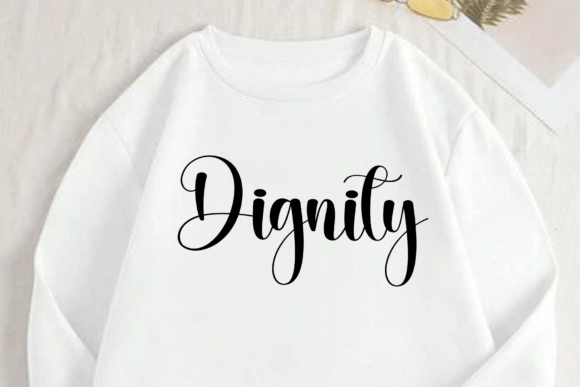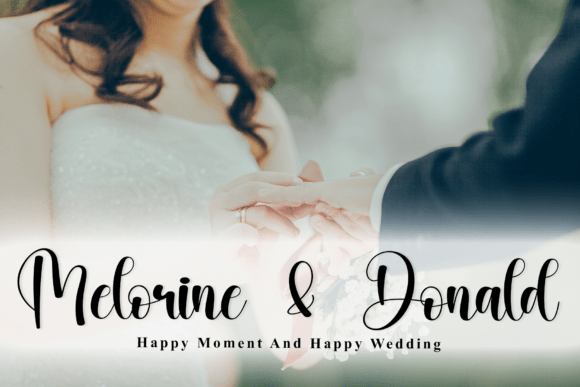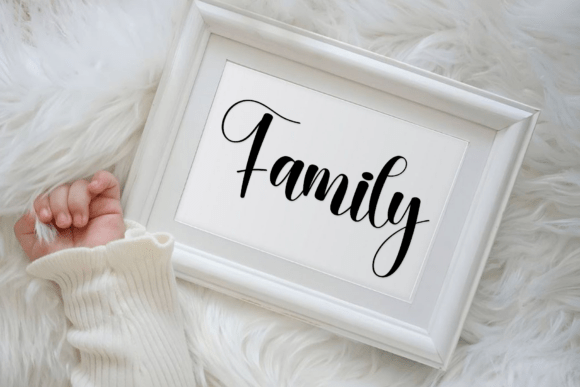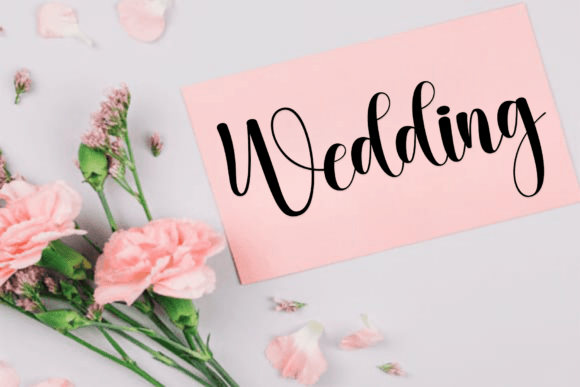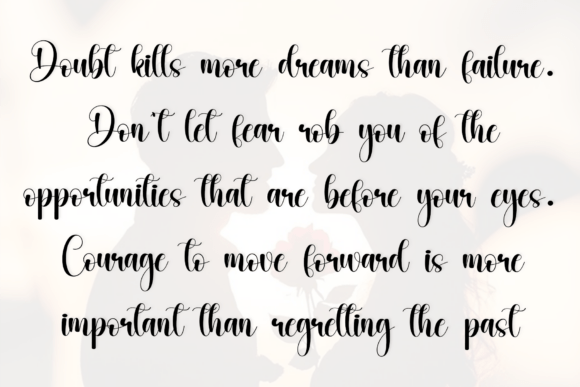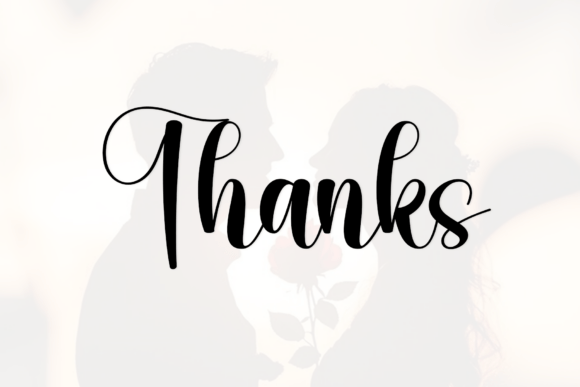
Introduction to Romatic Collection Font Font
Fonts play a crucial role in design, and the Romatic Collection Font font is a typeface that brings both character and versatility to any project. Whether you’re working on a branding project, a website, or a print design, the Romatic Collection Font font offers a unique style that can elevate your work.
Celebrate the art of romance with the Romatic Collection font, a stunning handwritten typeface that exudes luxury and passion.
This Romatic Collection typeface features sweeping flourishes and a professional, calligraphic weight that feels both intimate and grand It is the ultimate choice for high-end wedding invitations, perfume branding, and anniversary jewelry packaging.
Key Features of Romatic Collection Font Font
Why Choose Romatic Collection Font Font?
The Romatic Collection Font font is more than just a typeface – it’s a design tool that helps you communicate your message with style and clarity. Its unique character set and versatile design make it suitable for a wide range of applications, from elegant invitations to bold headlines.
With its carefully crafted letterforms and balanced proportions, the Romatic Collection Font font ensures readability and visual appeal across all mediums.
What makes Romatic Collection Font font special?
The Romatic Collection Font font stands out with its unique design, exceptional readability, and versatility across various design applications.